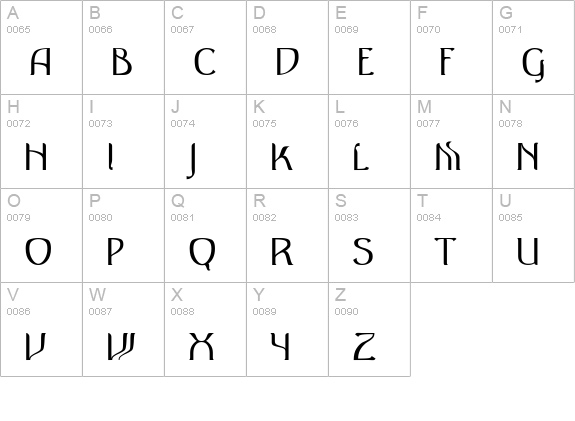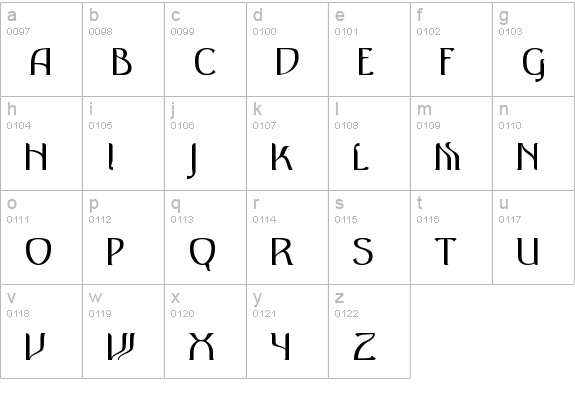
AntiqueRow Font Details
AntiqueRow font exudes timeless elegance and vintage charm, making it the perfect choice for projects that require a touch of nostalgia and sophistication. With its delicate serifs and classic letterforms, this font brings a sense of old-world beauty to any design. AntiqueRow font is available for free download at FontsMarket.com, allowing designers and creatives to easily access this stunning typeface for their projects. Whether used for invitations, branding, or editorial design, AntiqueRow font is sure to add a touch of antique flair and elegance to any project.